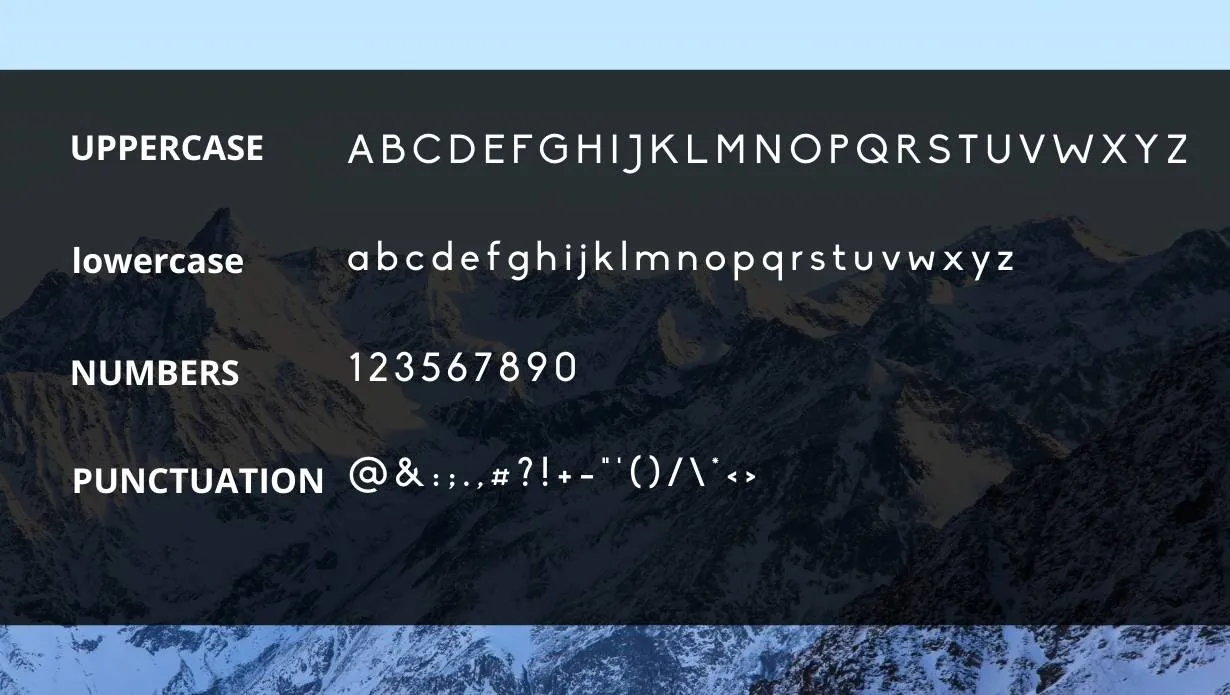
Biko Font is a sans serif typeface created by Ryoichi Tsunekawa and released through Japanese foundry Fontworks in 2009. Named for Steve Biko, the South African anti-apartheid activist, Biko is a humanist sans serif designed for use in both large and small sizes.
Biko Font Info
| Name | Biko Font |
| Designer | Ryoichi Tsunekawa |
| Style | Sans Serif |
View of Biko Font